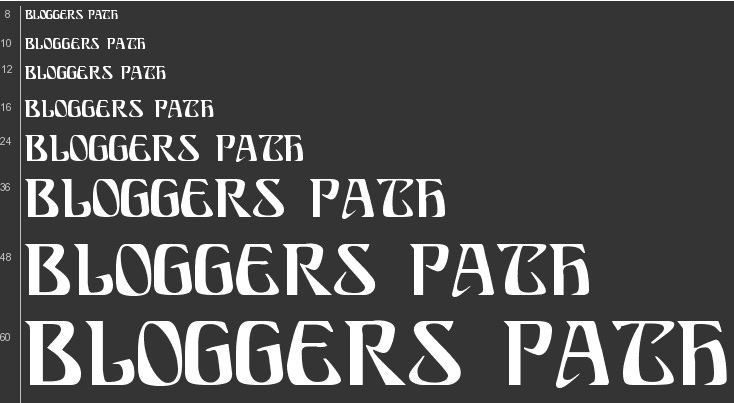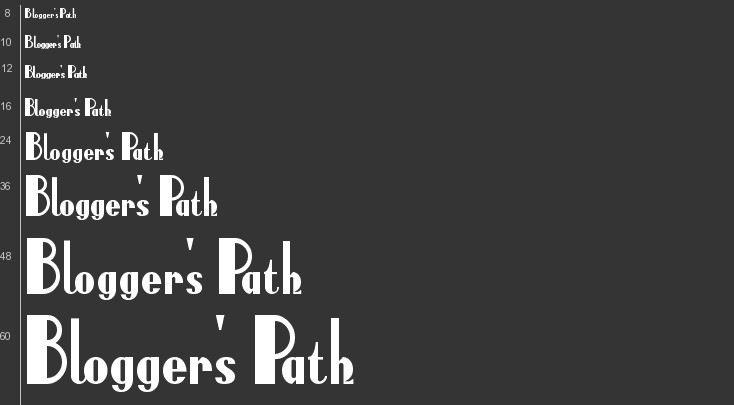
25 Free Fonts for Retro Style Graphics
Retro might be termed as the outdated fashion, trend or culture from the valve of past. In general language we can define retro as vintage look which is used in iconography, imaginary interjection, mass media & advertising most. Retro is a Latin word which tells about something about the past, particularly as seen in the words retrograde, implying a movement toward the past instead of a progress toward the future. The Retro Style was originated in 1940s and 1950s for the need of bold, eye capturing graphics that were easy to reproduce from available past time models. Perhaps the most famous example of a retro pop-art character is the more generalized form of the Ward Cleaver-styled J. R. “Bob” Dobbs-esque icon which has been widely played off, copied, and parodied. For Retro style needs and fashion, many designers have tried and many of them still trying to create more stylish and attractive font patterns. Today, we are presenting the 25 attractive and retro pattern fonts for decorating your text and graphics in retro style.
NIGHTCAP
ODALISQUE
Nip And Tuck
New Venice
Milton Burlesque
Knuckle Down
fenotype
AddLoops
Anabolic Spheroid
Anchor Steam
ARIOSTO
Beamie
metropol
Herald Square
Gravity Sucks
French Curve
Fingerpop
FETE ACCOMPLI
BellBottom Laser
Comons
Bulgari
DEBONAIR
CRYSTAL GYPSY
Echo Deco
DRIVE THRU